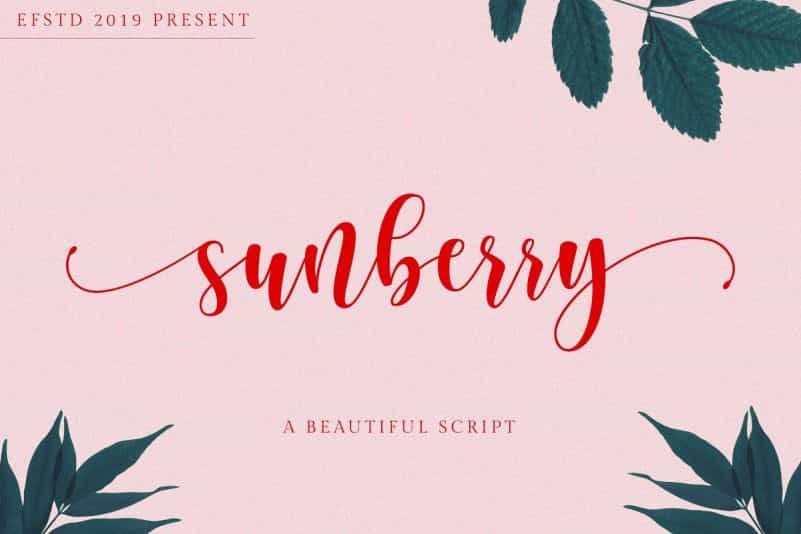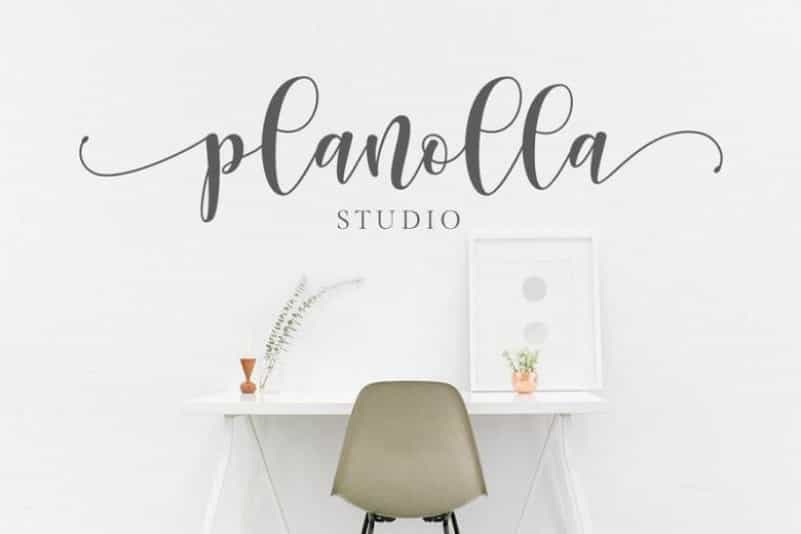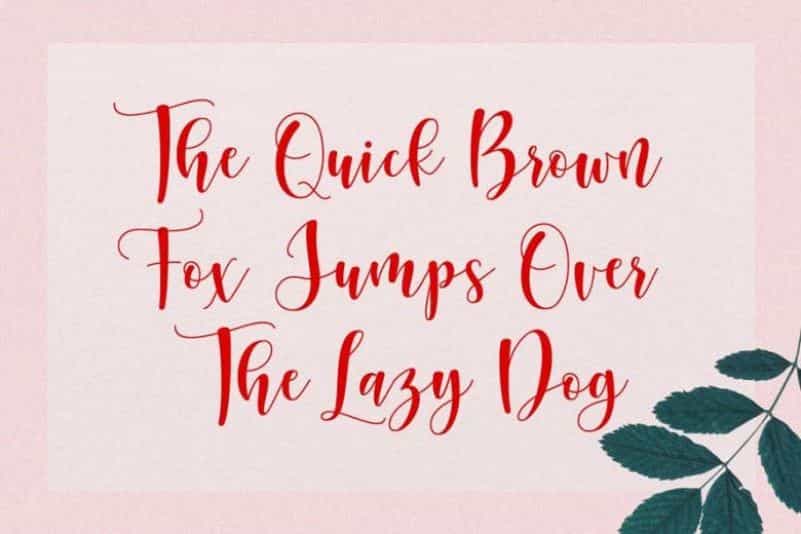
Say hello to the Sunberry Font! This is calligraphy an elegant new font. This font is made especially for those of you who need a touch of elegance to design your next project with perfect and amazing results! It is designed and shared by Ef Studio.